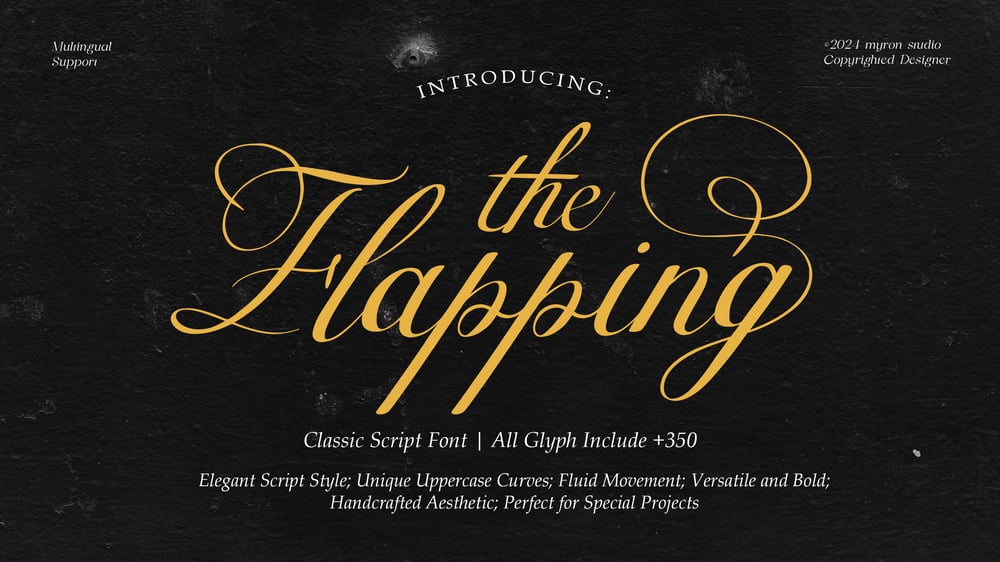
Flapping
Flapping font
Flapping Font Family was designed by published by Myron Studio. Flapping contains 1 styles and family package options. Introducing Flapping – A Timeless Script Font with Elegant Vintage CharmsFlapping is a classic vintage script font with a modern twist, designed to evoke a sense of sophistication and allure. With every stroke, this font seamlessly blends timeless elegance with a sensual touch. The graceful curves of each uppercase letter, combined with the flowing tails and swooping descenders, give Flapping a uniquely seductive presence—as if each letter gently invites the viewer to linger and admire its beauty.The natural flow of the lines in Flapping creates an organic rhythm, as though the font is alive, moving with the breeze of time. The elegant curvature of each character feels as though it’s drawn by a steady hand, yet effortlessly influenced by the soft winds that whisper through the cosmos. Every stroke, every arc, every flourish tells a story of motion and grace, like a dance in the air that leaves a trace of its beauty in the world.